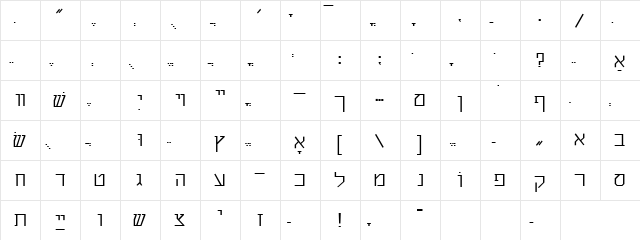
ShalomStick Regular
Design Context for ShalomStick Typeface
ShalomStick offers clean, dependable letterforms without strong stylistic allegiance, making it a practical choice for designers who need flexibility.